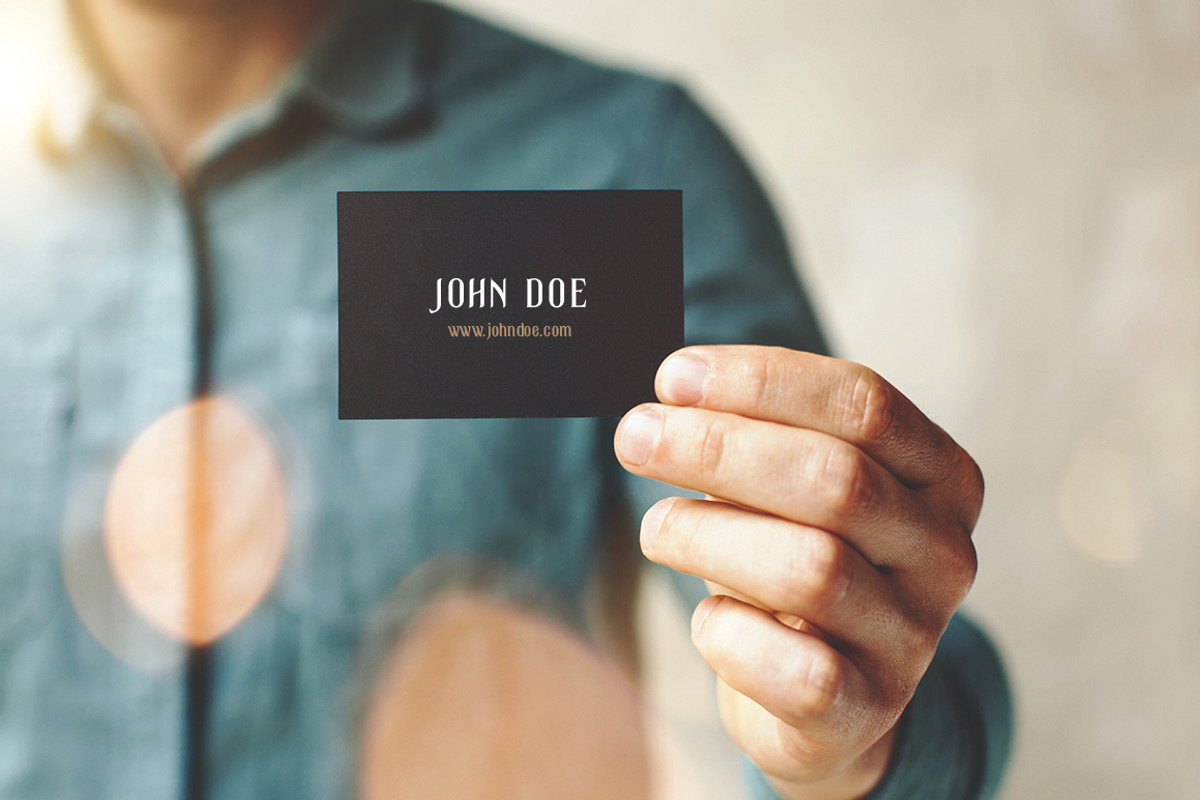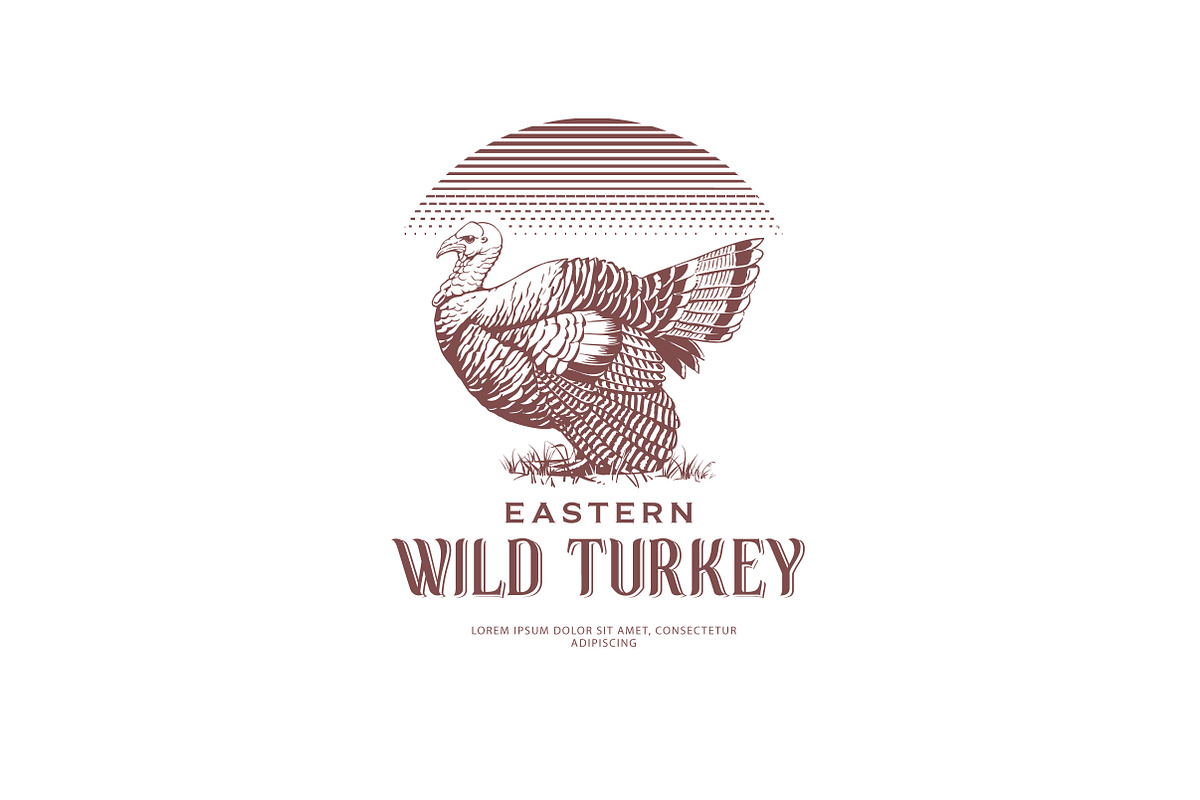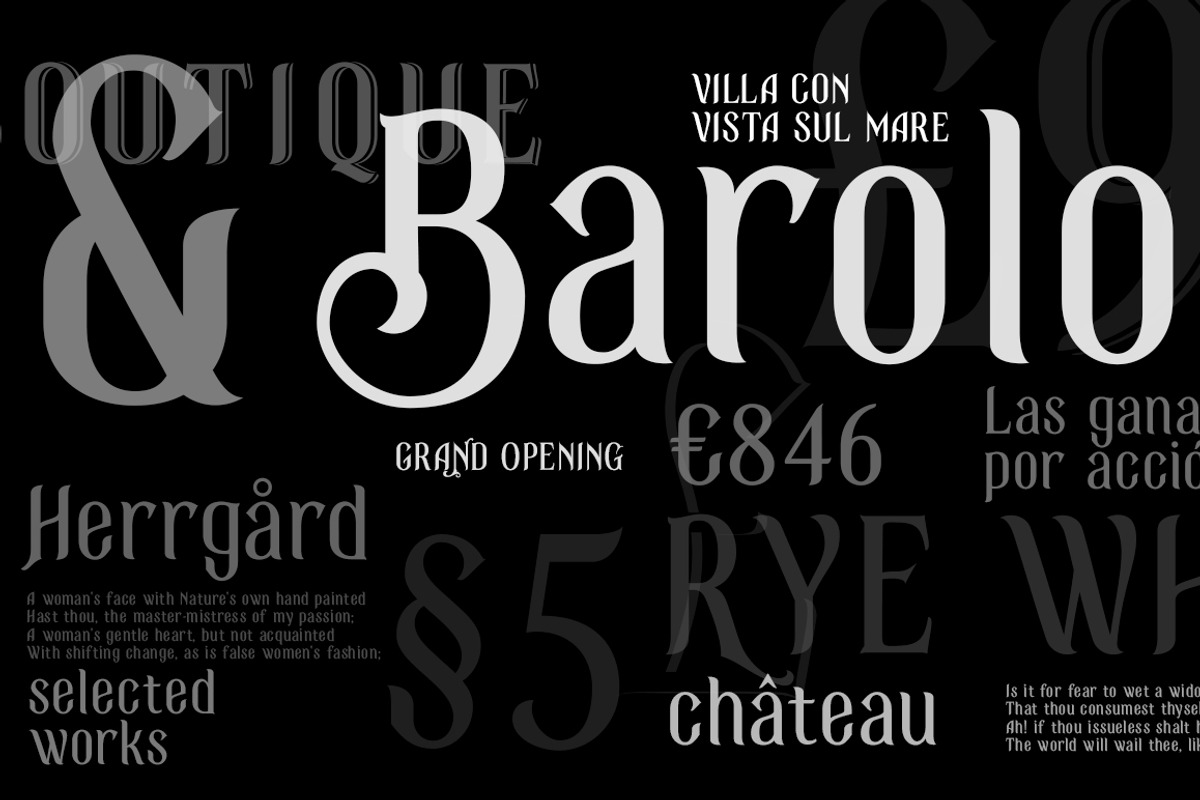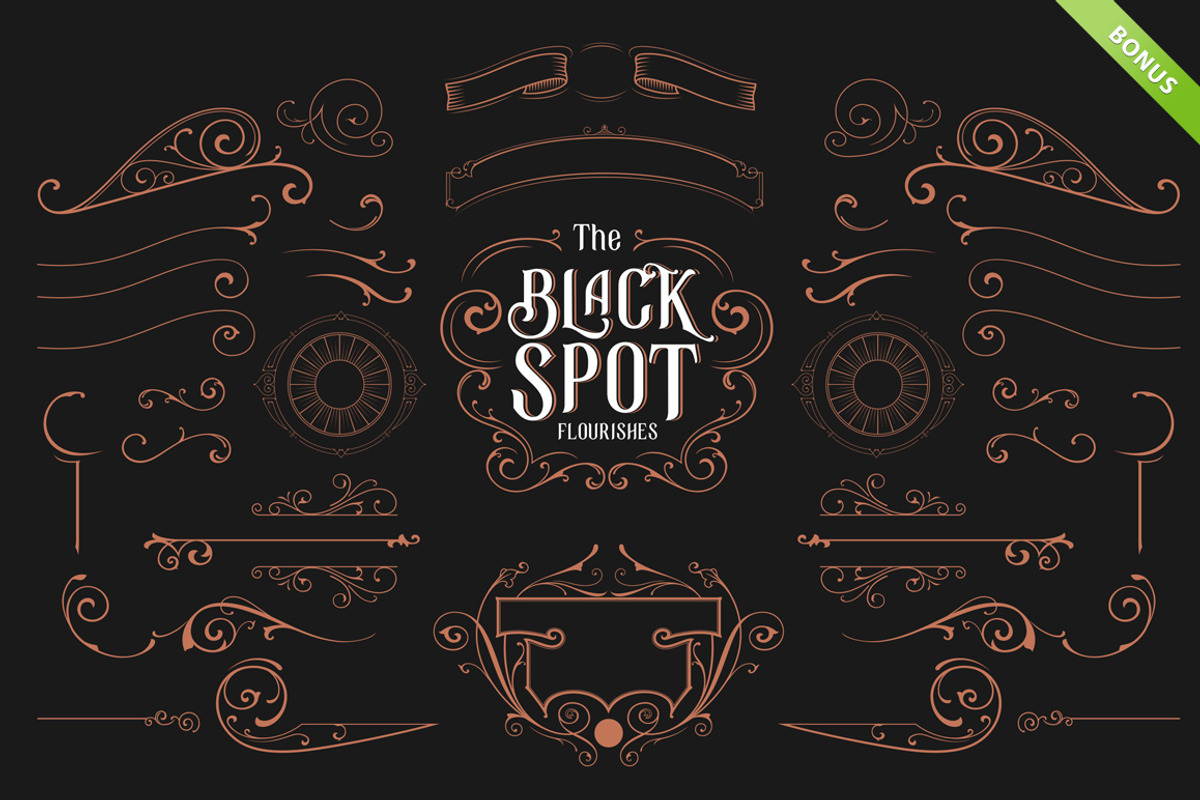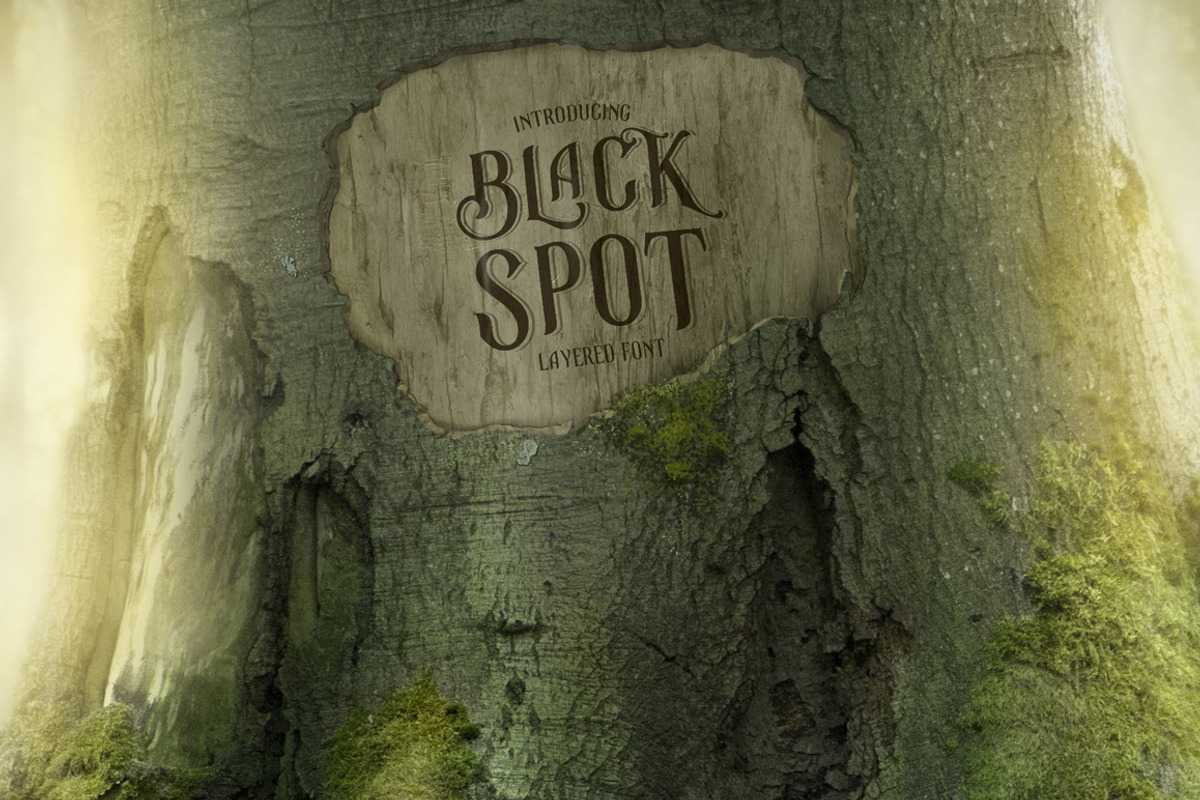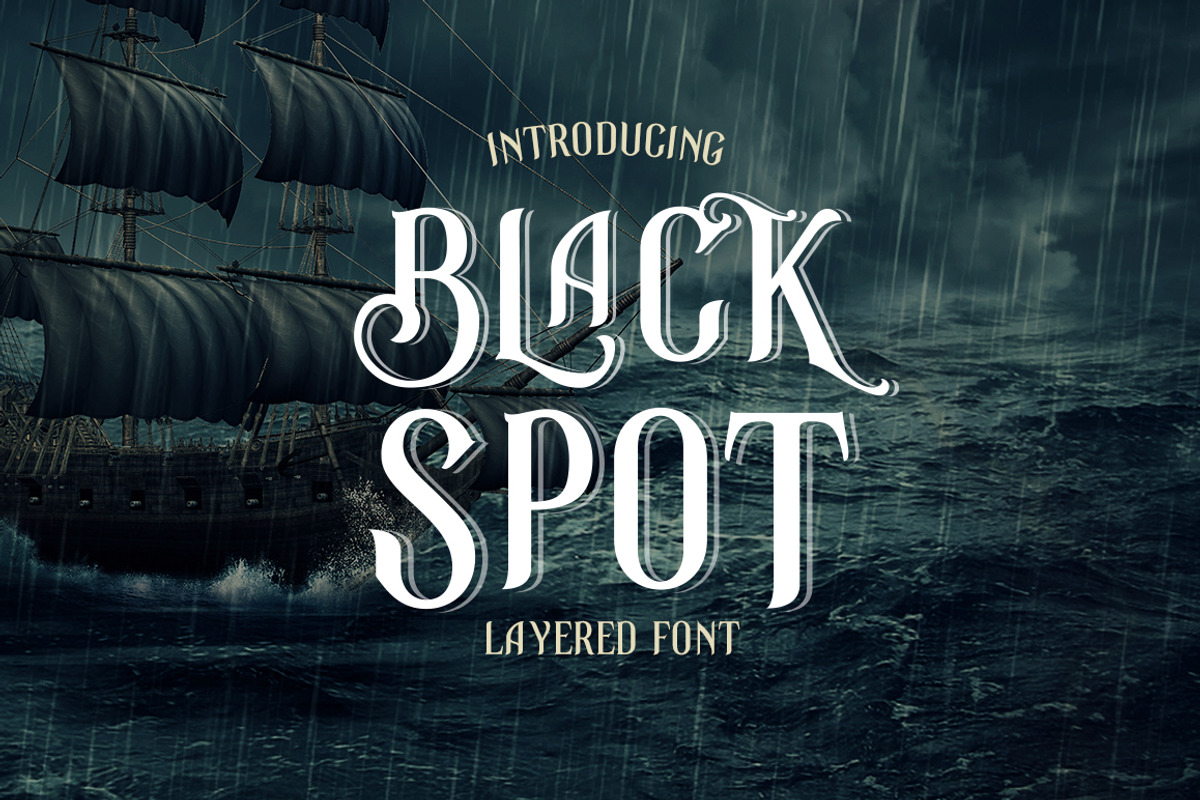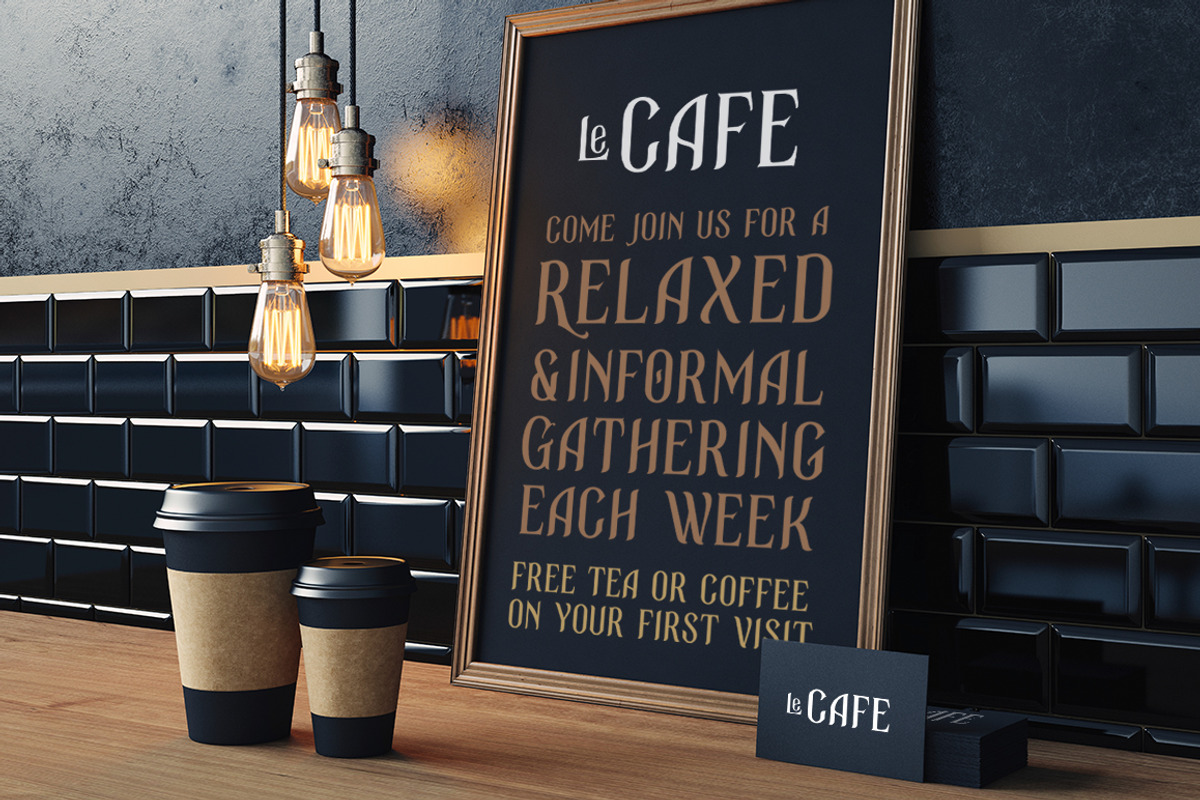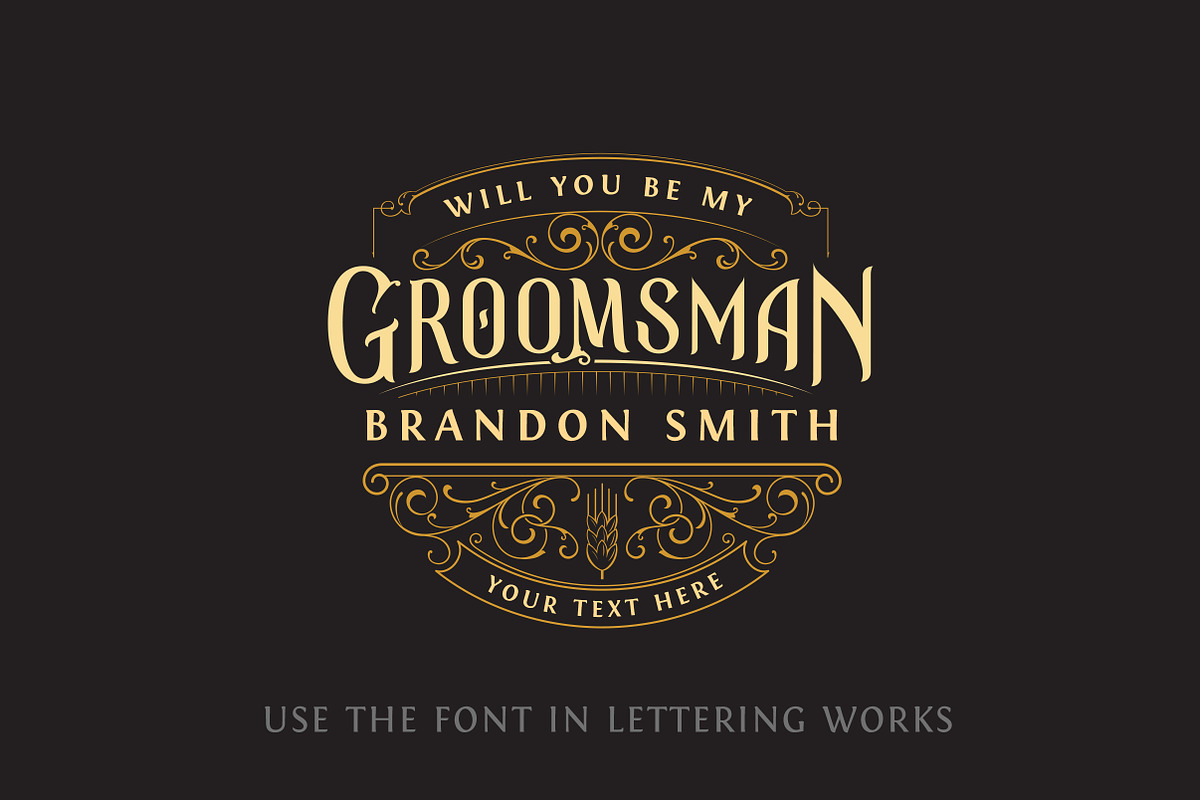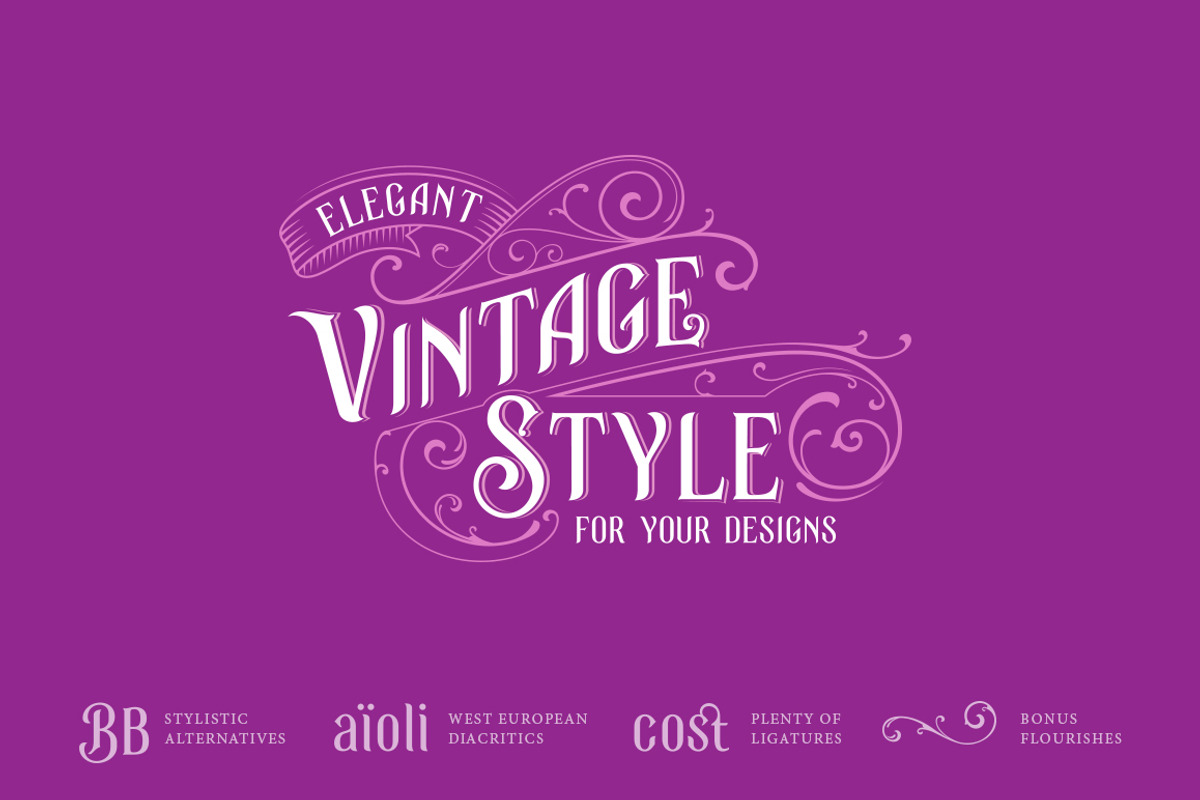
Black Spot Vintage Display Font
Elegant curvy font with vintage flair ready for your logos, beer and whiskey labels, lettering pieces and packaging designs. Black Spot Font consists of two layers, the font itself and the shadow layer. The font includes a full set of uppercase and lowercase letters, diacritics, currency signs, numerals, punctuation and bonus flourishes set in ai and psd formats. The Black Spot has stylistic alternatives for all Capitals and some lowercase characters, standard and discretionary ligatures. Package content: